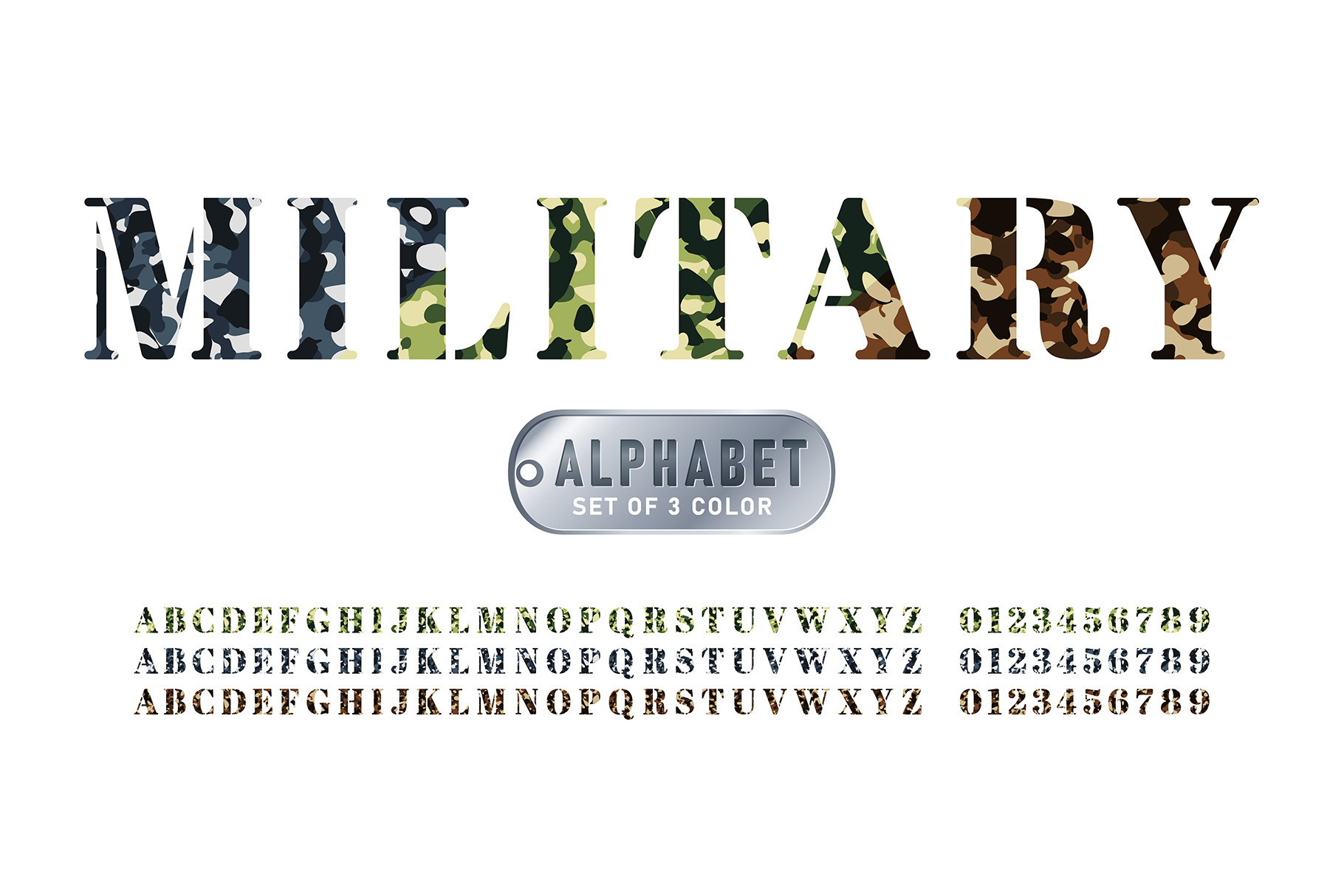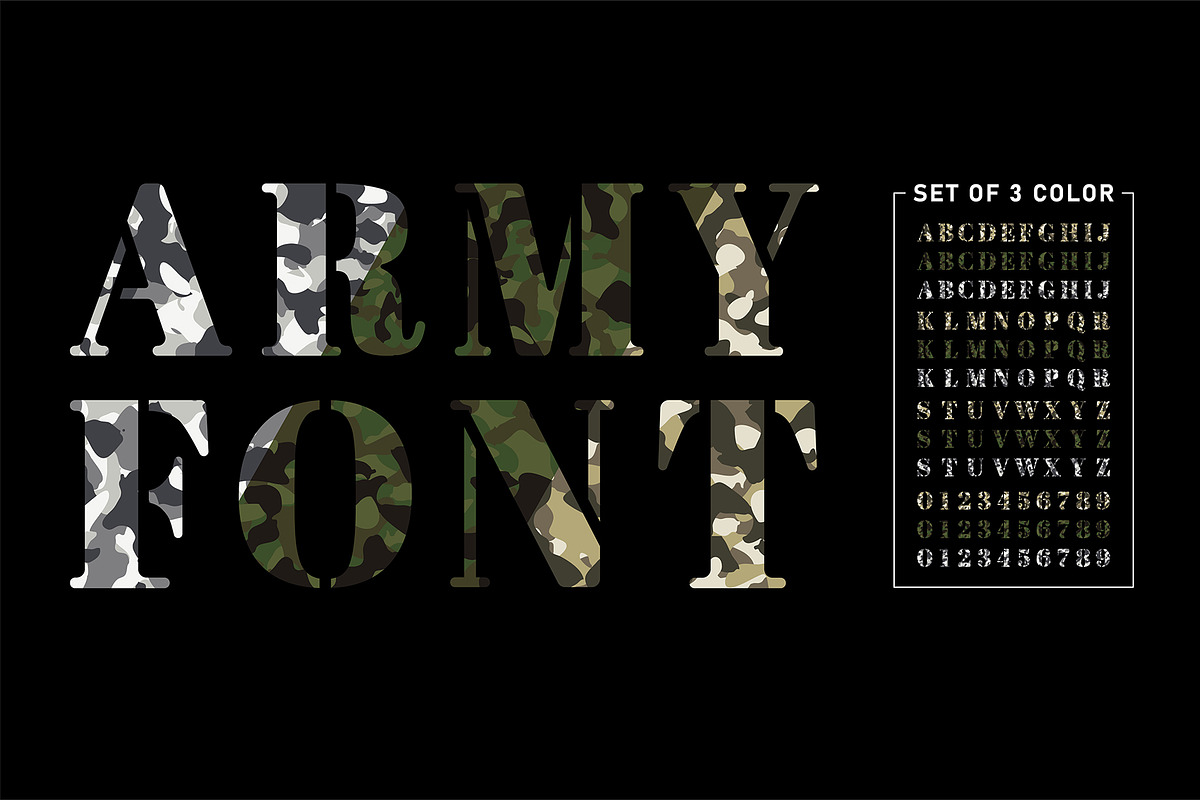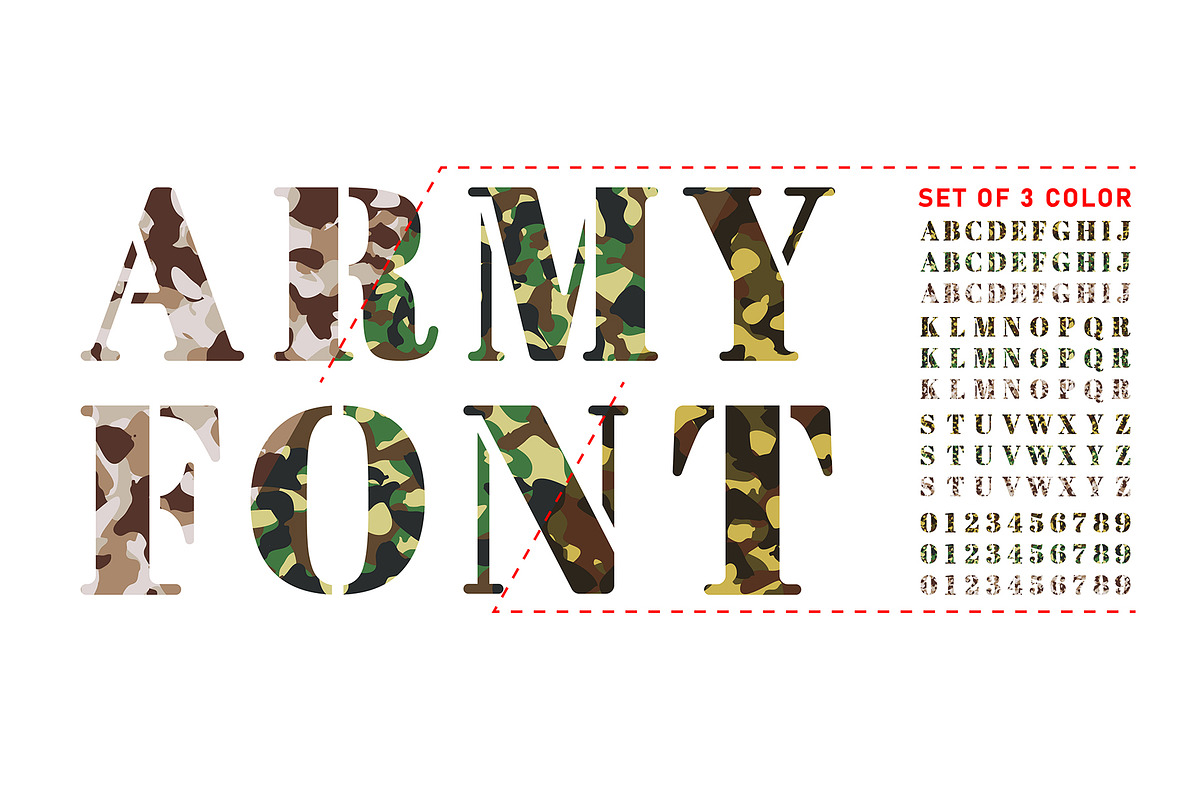
Camouflage Stencil Font Set
Camouflage Military Alphabet. Bold Army Stencil Font in 3 Colors with Jungle and Grunge Texture for Tactical and Survival Design Projects - EPS (Not a Font!)
- Uppercase letters A - Z
- Numbers 0 - 9
- Clean, modern, and unique alphabet design